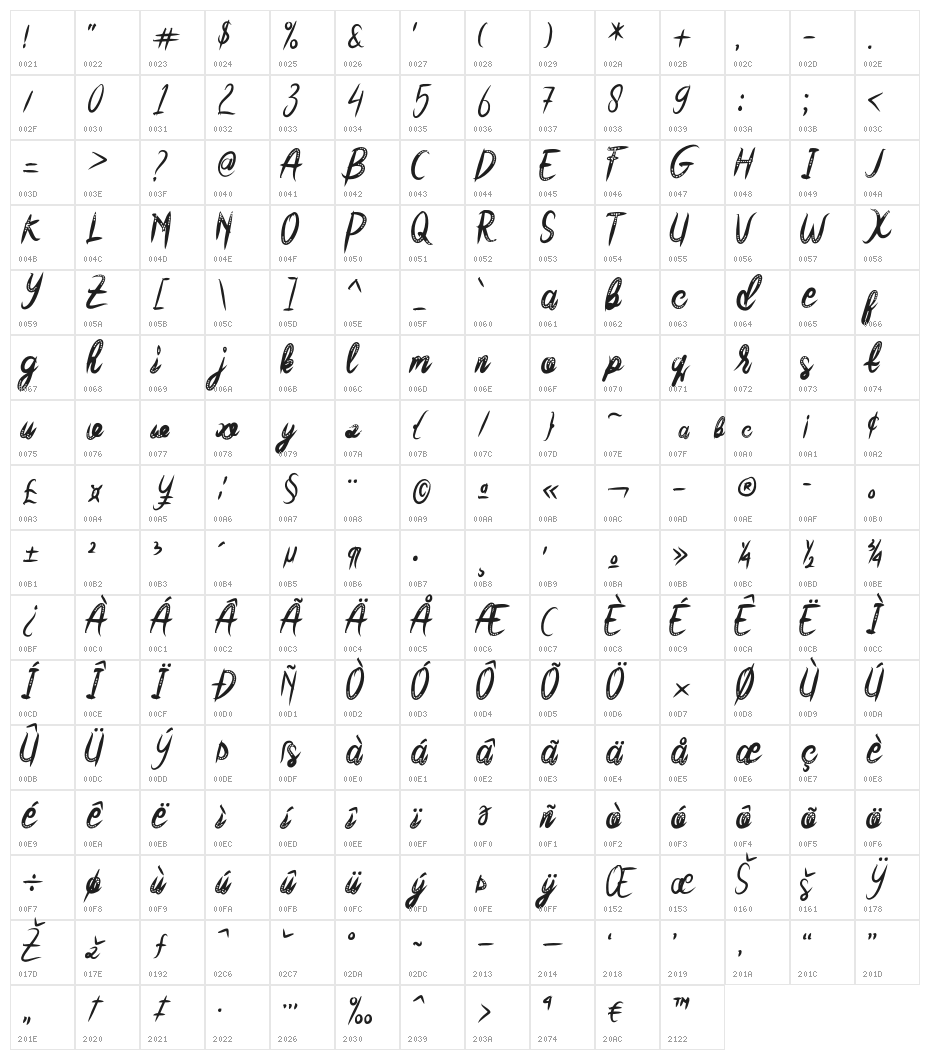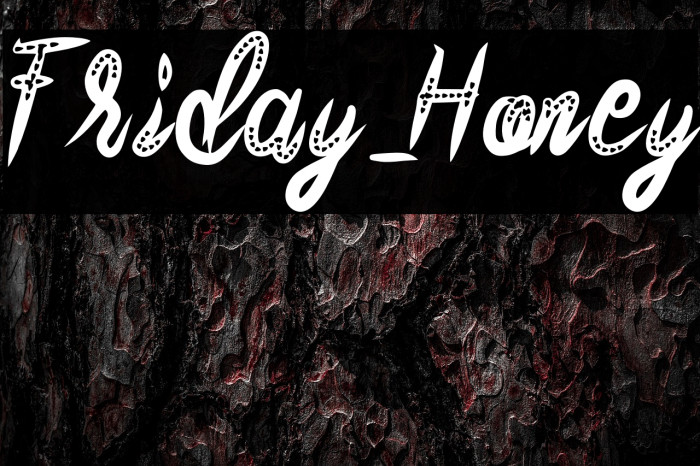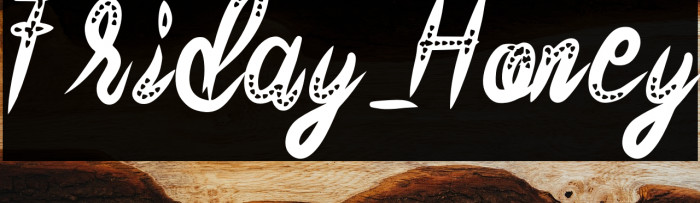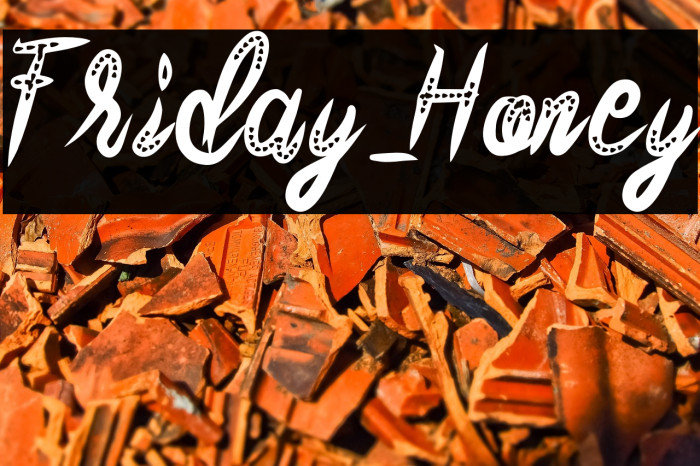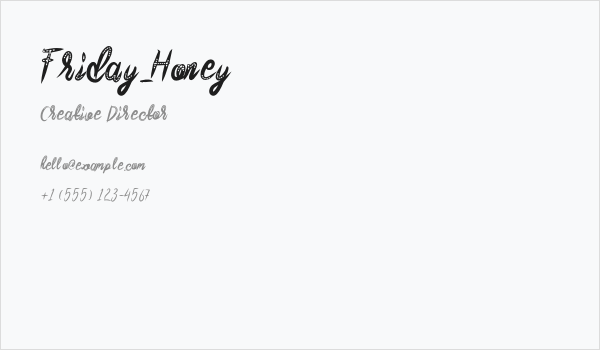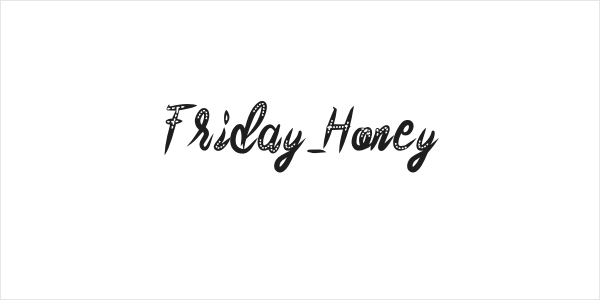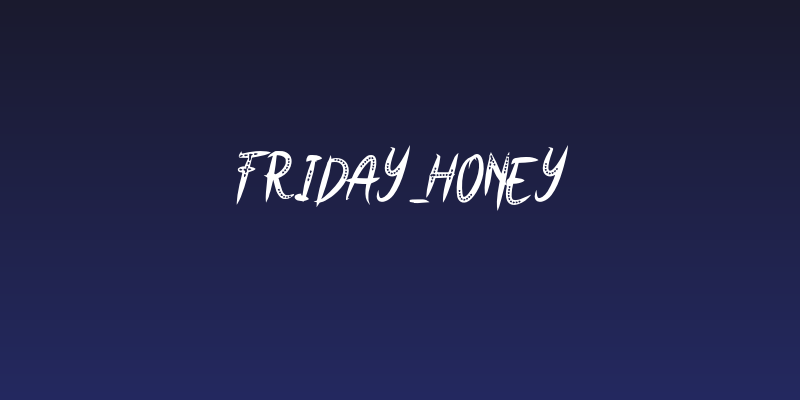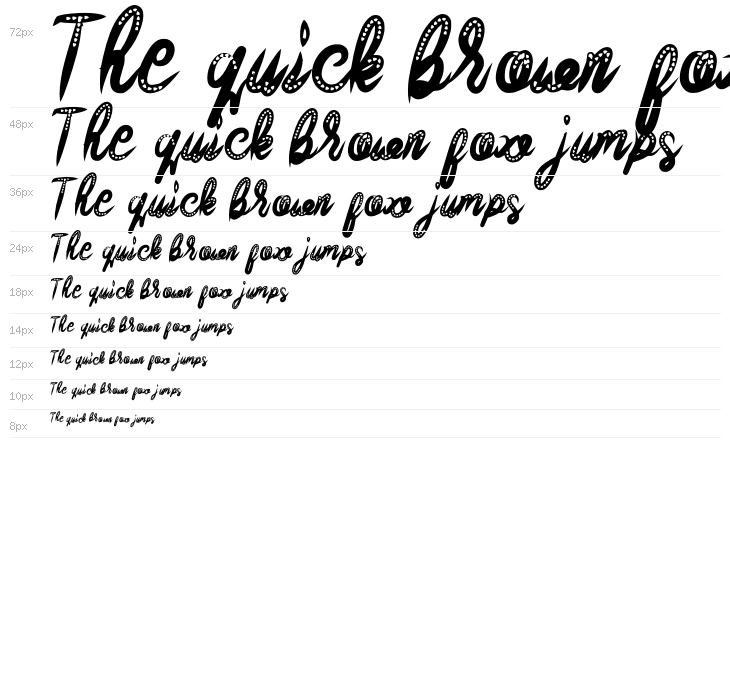
Friday_Honey Font
Friday_Honey Description
This font features a playful and whimsical style, characterized by its script-like appearance with a decorative flair. The letters are bold and dynamic, with a hand-drawn quality that adds a personal touch. Each character is adorned with polka dot accents, enhancing its unique and eye-catching design. The strokes vary in thickness, providing a lively contrast that captures attention. The font maintains a consistent flow, making it suitable for creative and informal projects. Its distinctive style is perfect for adding a fun and energetic vibe to any design.
| Overall Style | Playful and Whimsical |
| Proposed Projects | Ideal for greeting cards, children's book covers, playful branding, and event invitations. |